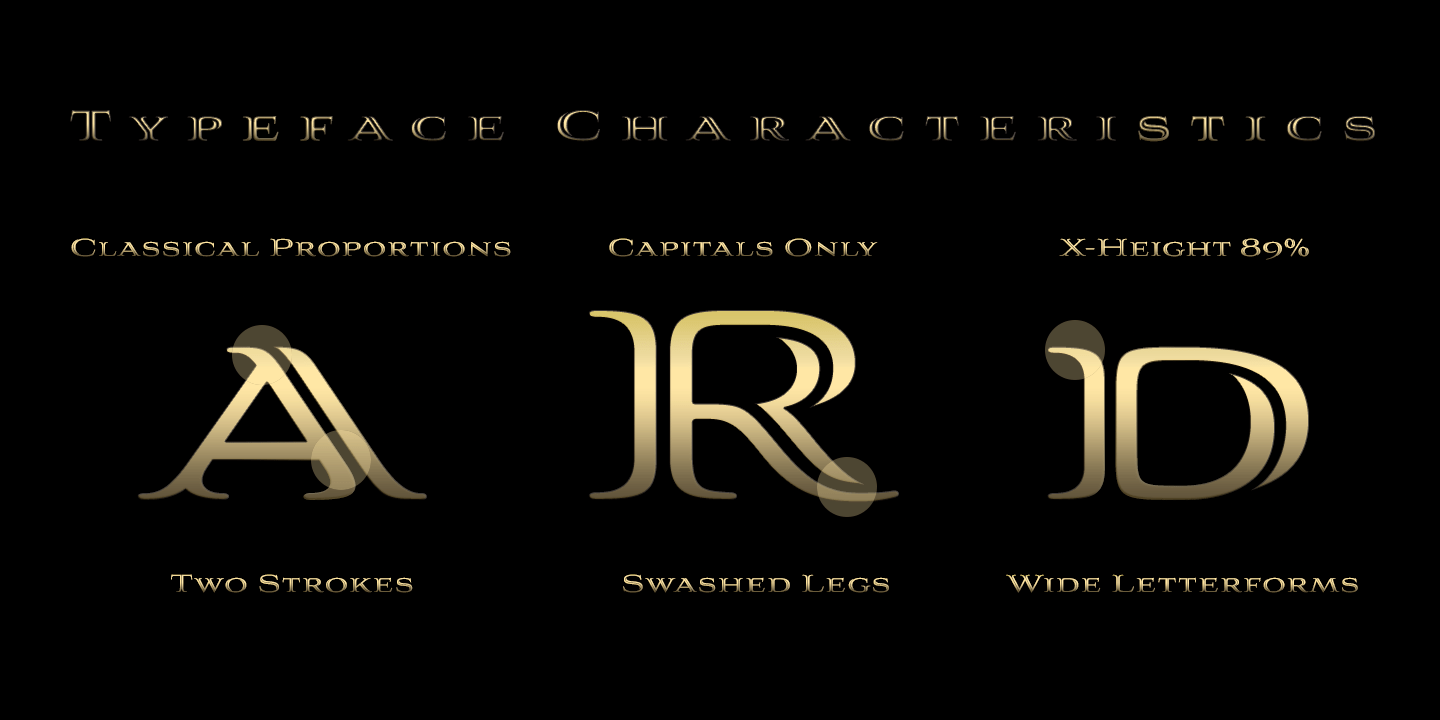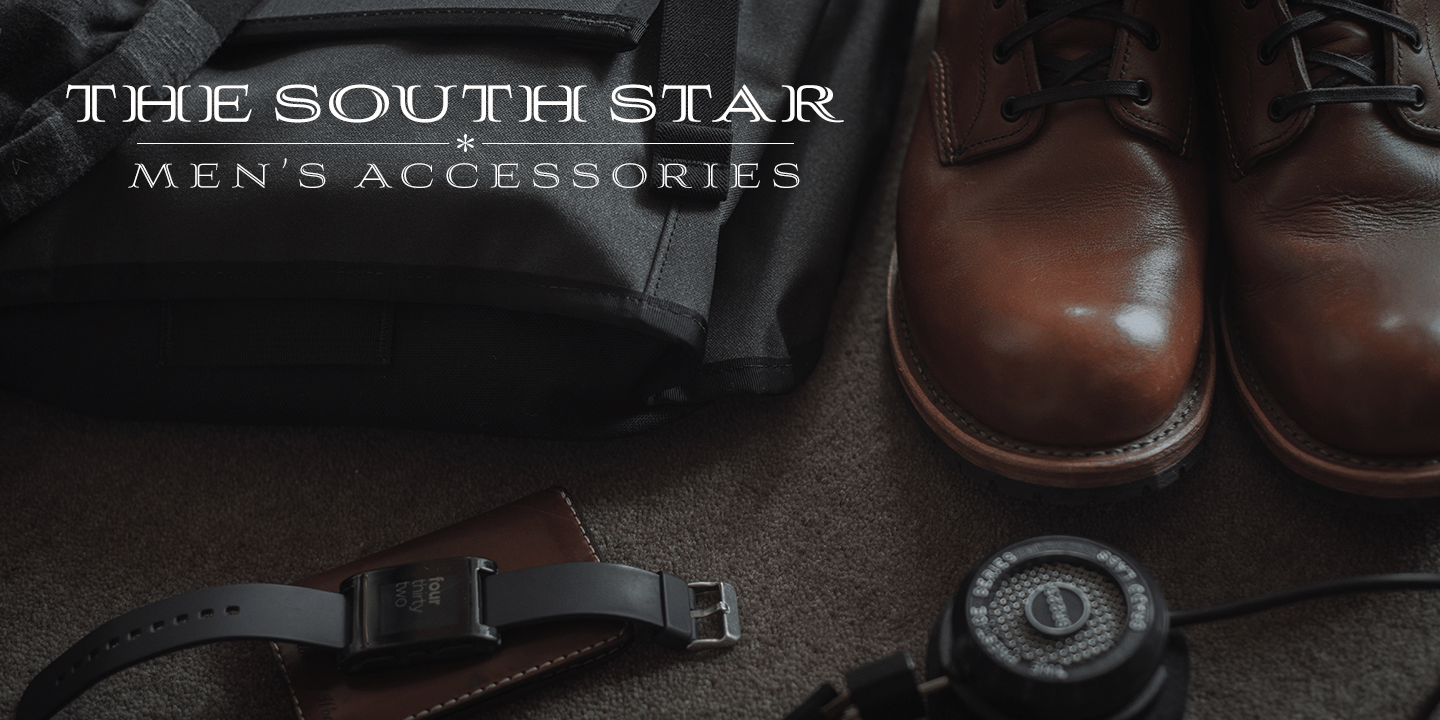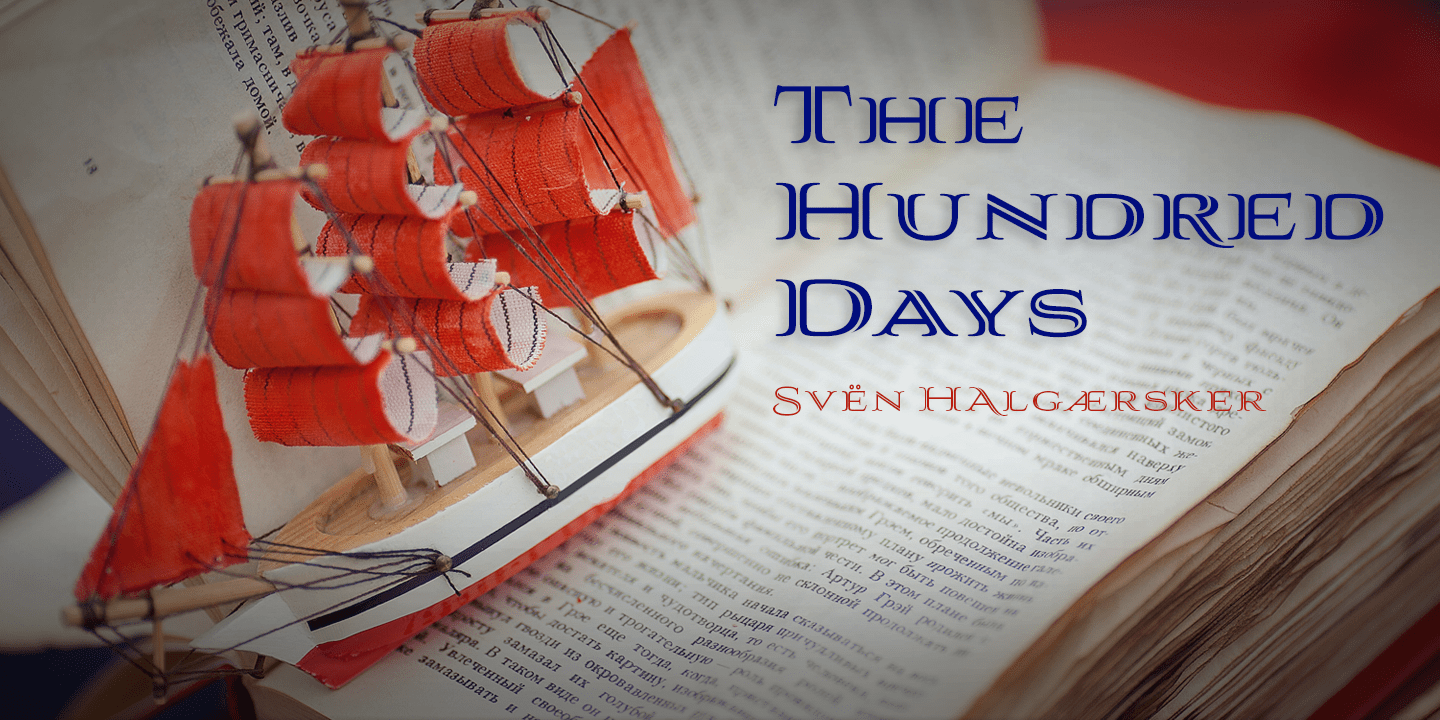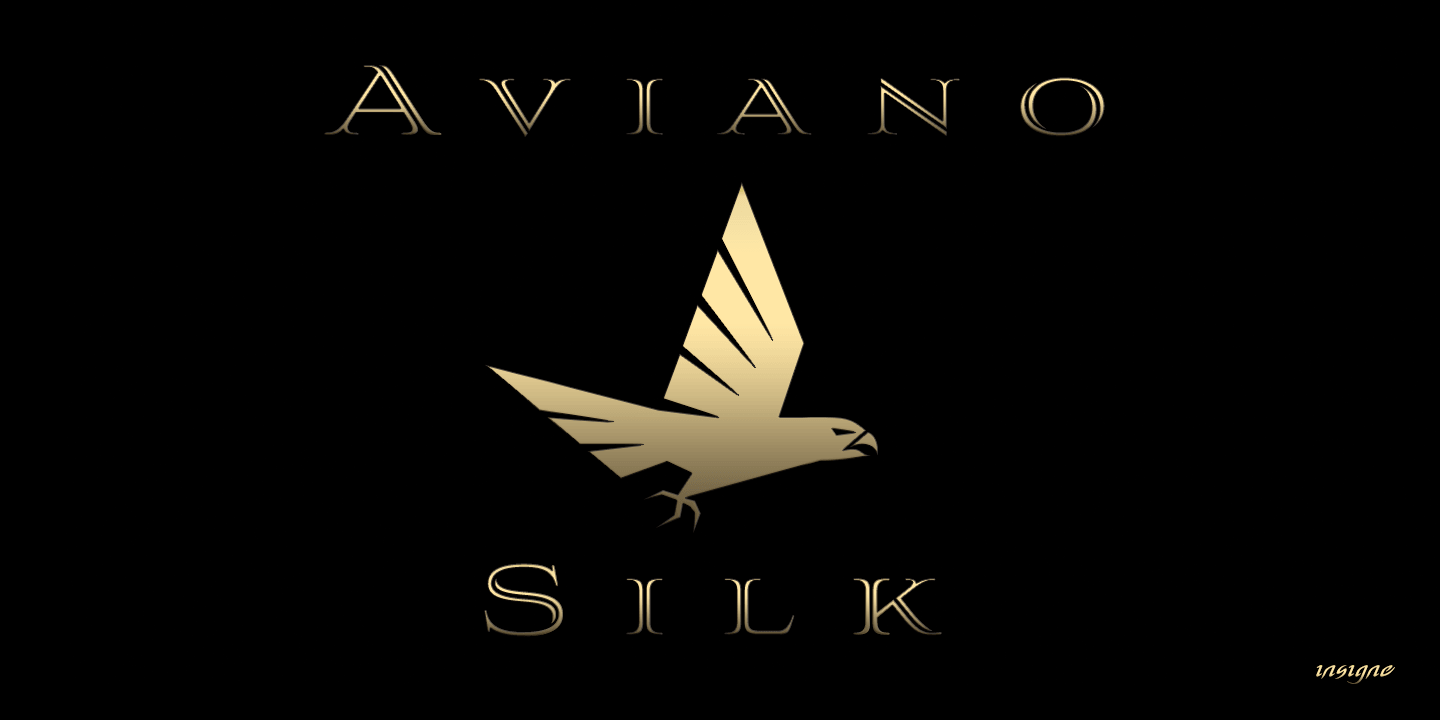
Aviano Silk
About Aviano Silk
A premier product from insigne, the powerful Aviano redefines its classic lines for the contemporary elegance of Aviano Silk. This modern development of a timeless font, part of insigne\’s annual tradition in adding to the Aviano family, was elected the…